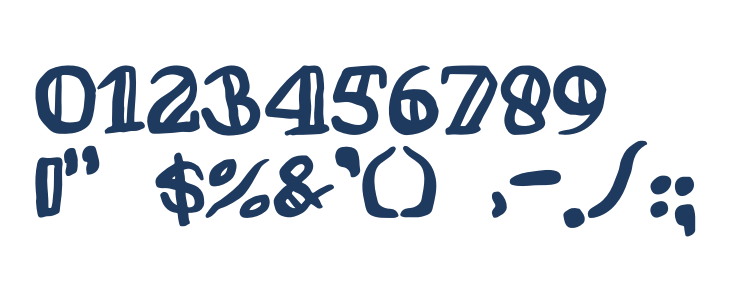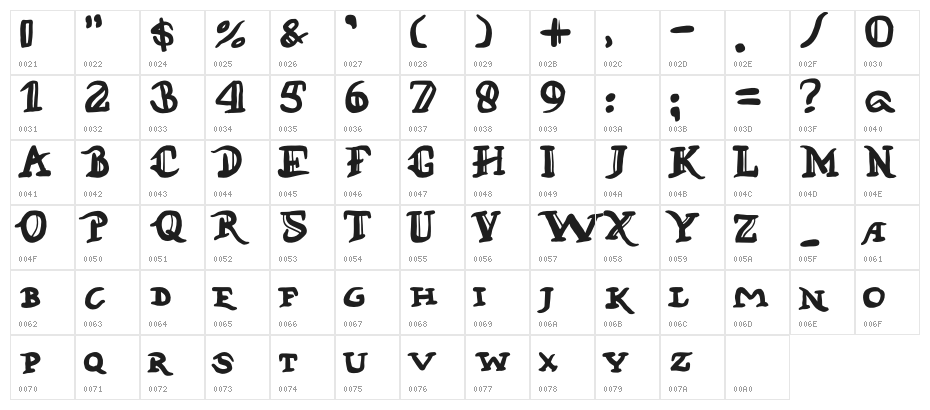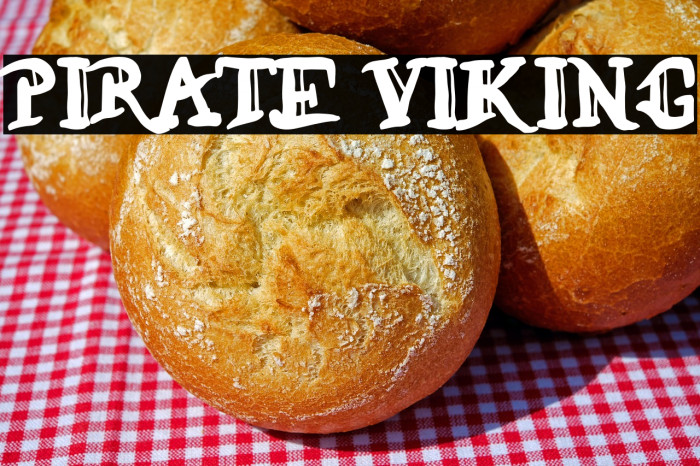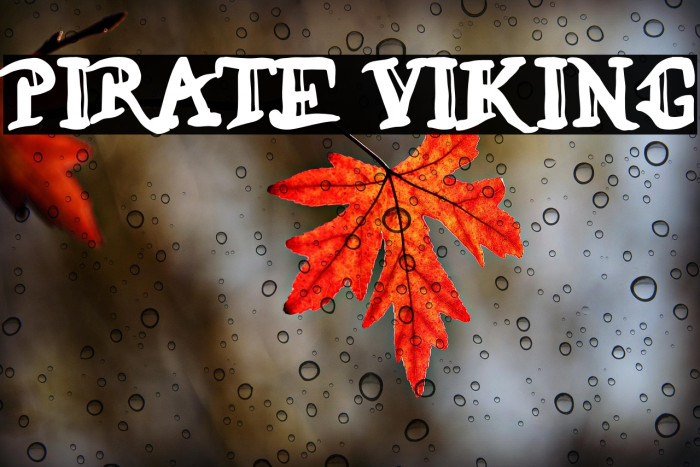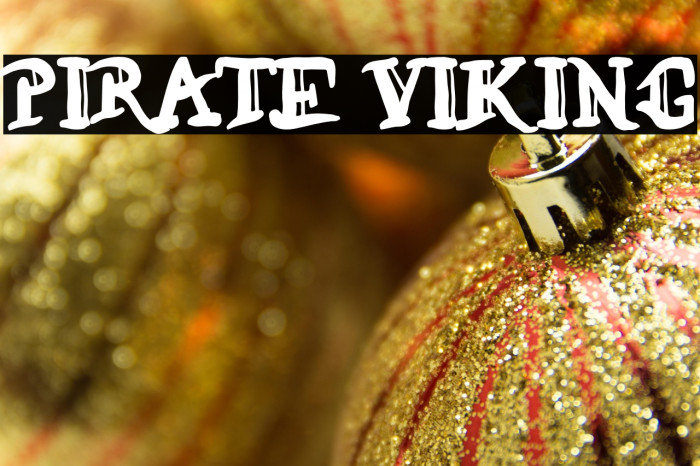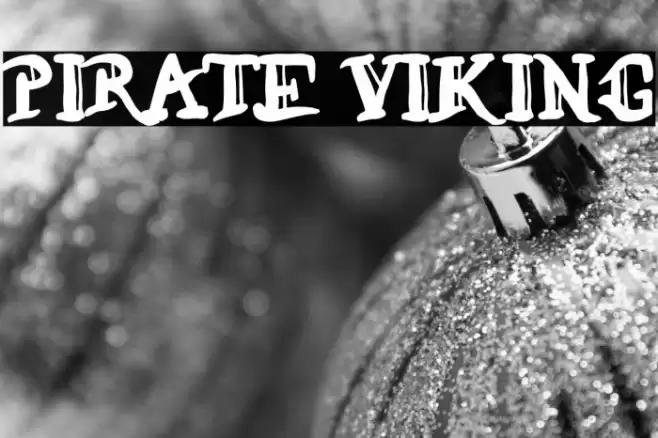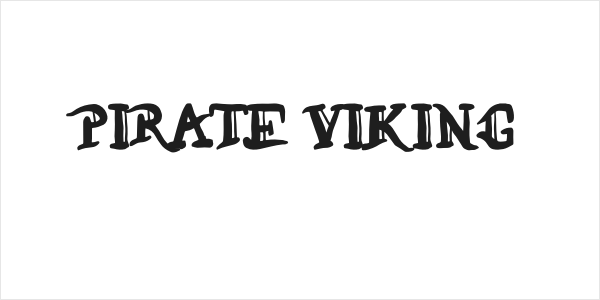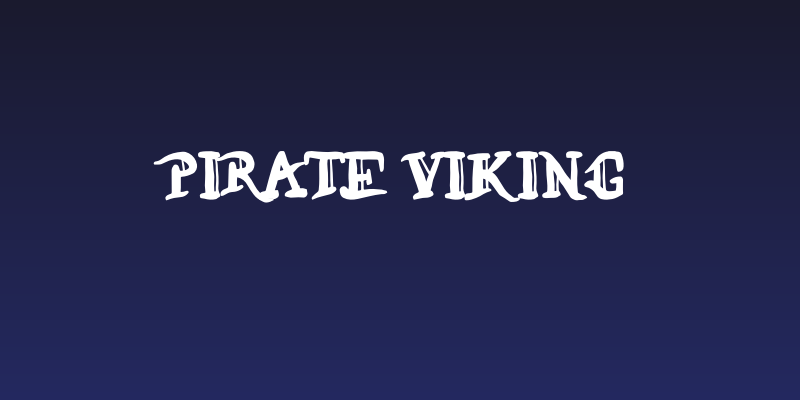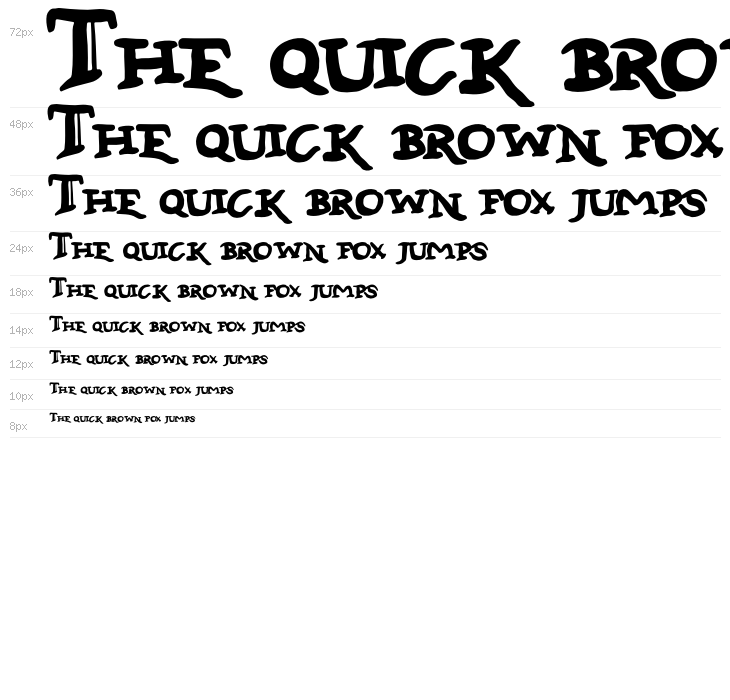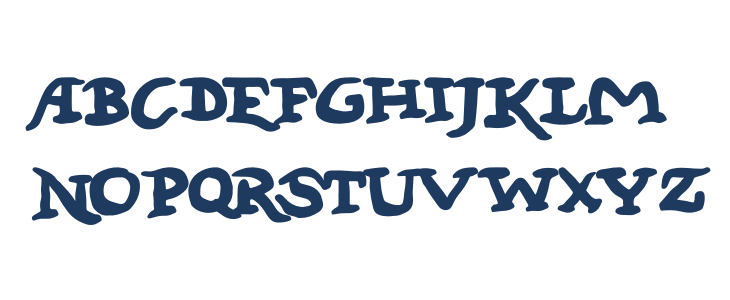
PIRATE VIKING Font
PIRATE VIKING Description
This font features a bold and adventurous style, reminiscent of pirate and Viking themes. The characters are robust and slightly irregular, giving them a hand-carved appearance. The uppercase letters are particularly striking, with exaggerated serifs and a strong presence. The lowercase letters maintain the same rugged aesthetic, ensuring consistency throughout the typeface. Numbers and special characters are designed with the same bold strokes, making them stand out. This font is perfect for projects that require a touch of historical or fantasy flair.